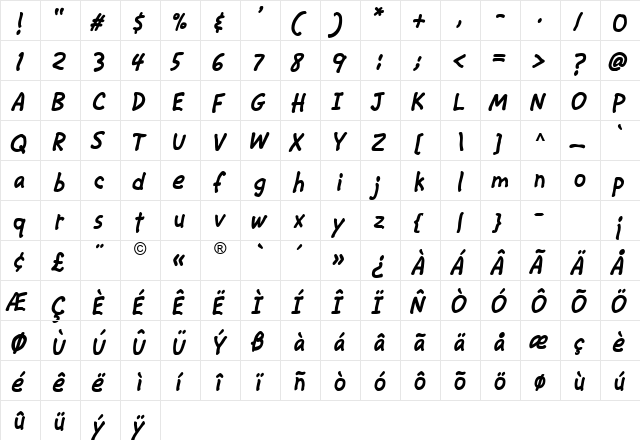
CAC Krazy Legs Bold Regular
CAC Krazy Legs Bold is a composed and adaptable typeface that performs quietly and consistently across a wide range of design contexts. Its bold stroke weight gives it real presence on the page.